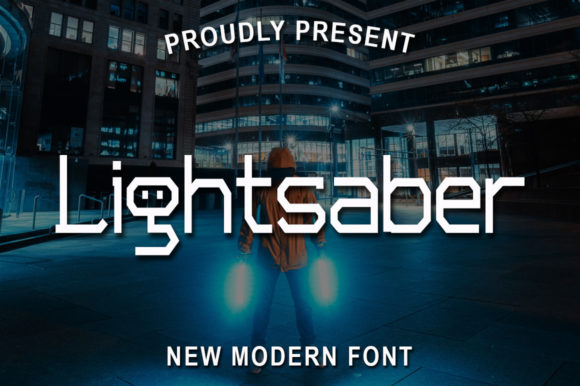
Welcome to the realm of Lightsaber Font! Prepare to embark on a type adventure that will dazzle your eyes and ignite your creativity. This remarkable display font dares to venture into the unexplored regions of typography, pushing the boundaries of expression with its electrifying techno aesthetic. Whether you're crafting web designs, designing business cards, or seeking a touch of brilliance for your visual projects, Lightsaber Font stands ready to elevate your vision to new heights.
Step into a world where imagination takes form, where every letter is a stroke of genius, and each word carries the power to captivate. Let Lightsaber Font be your guide through this realm of digital enchantment, an odyssey where fonts dance with light, creating visual symphonies that resonate with your audience. Unlock the door to endless possibilities, where your designs will shine with an otherworldly glow.
Lightsaber Font is a testament to the transformative power of type. It's a font that refuses to be confined by convention, breaking free from the mundane to explore the cutting edge of visual articulation. Its sharp edges and dynamic curves mimic the energy of a lightsaber, creating a visual feast that commands attention. Let your words dance across the screen or leap off the printed page, captivating your audience with a font that refuses to blend into the background.
With Lightsaber Font, you're not just downloading a font; you're acquiring a tool that unleashes your creative potential. It's a font that inspires you to think outside the box, to explore new frontiers of design, and to leave your mark on the digital landscape. So why settle for ordinary fonts when you can wield a weapon of typographic brilliance? Embrace the power of Lightsaber Font and watch your creative vision ignite with its techno glow.